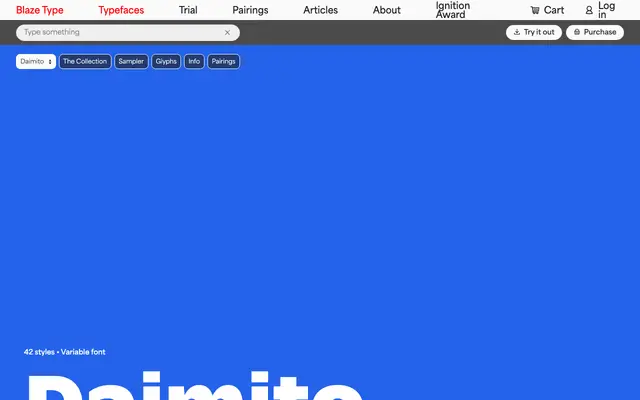
A 42-style geometric sans from Blaze Type spanning three widths and seven weights, with slanted companions and variable font support throughout.
The family is organised into three subfamilies — Condensed, Normal and Expanded — each running from Thin to Black with slant variants at most weights, giving 42 styles in total. Variable font support means the width and weight axes can be explored fluidly across a single file. The systematic range suits editorial, branding and display work where consistent character across widths is required.
Daimito presents as a geometric sans-serif with a clean, structured character set across three width variants. The slant styles rather than true italics, and the systematic width and weight axes are consistent with a geometric sans approach.